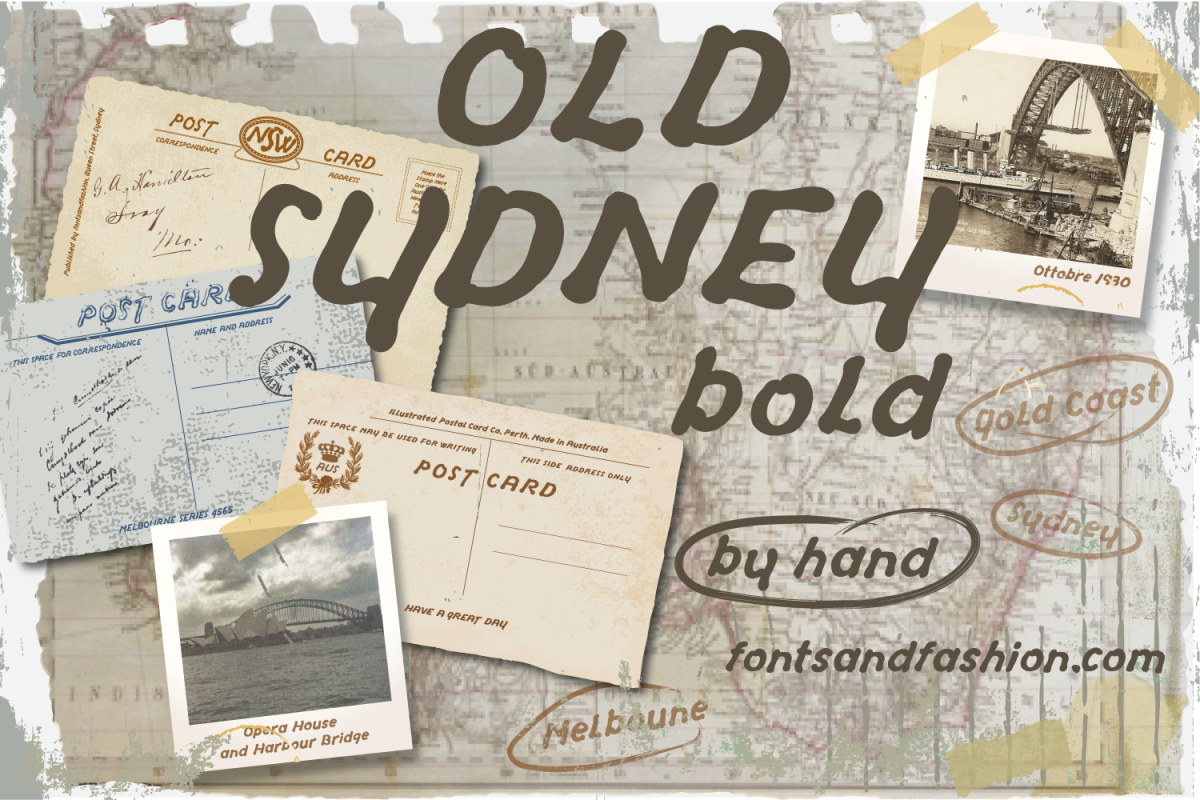
Old Sydney_Bold
“OLD SYDNEY_bold” definetely has a much firmer character than the basic version. It’s funny and cocky to the right point.
Its roundness and its fluctuating movement make it suitable for countless uses and it could embellish any artwork of yours with an authentic touch of the human hand .